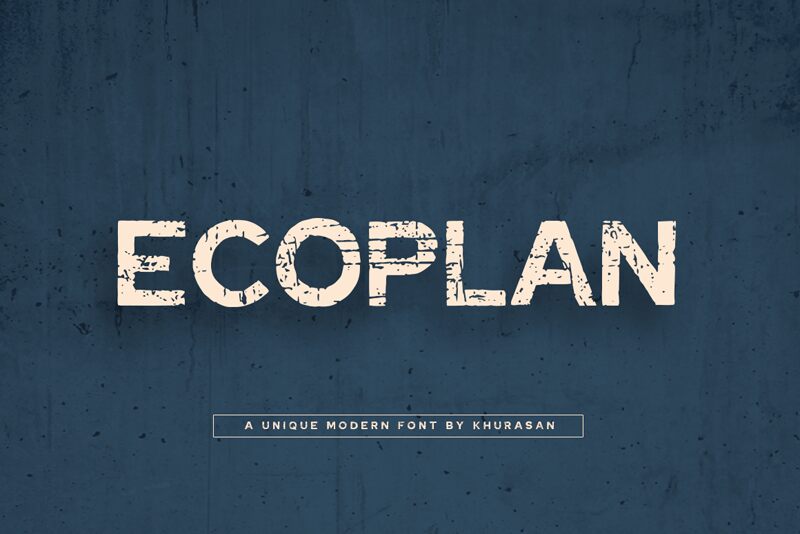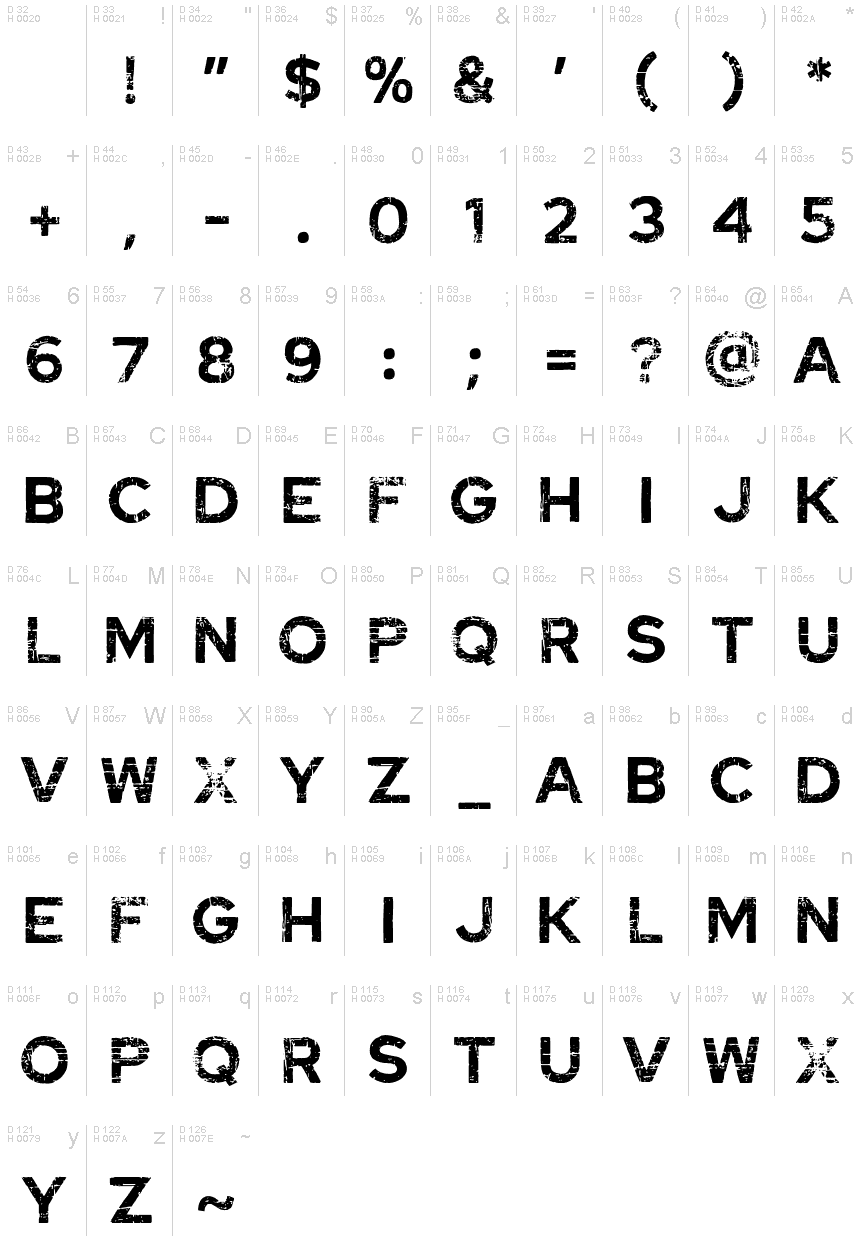
Ecoplan
Ecoplan, designed by Khurasan, is a display font that boasts an eroded, semi-bold character with a semi-expanded width that adds a gritty yet modern touch to any design project.
Perfect for those seeking an edge in their creative work, Ecoplan's distinctive texture makes it an ideal candidate for eye-catching posters, dynamic logos, contemporary magazines, and compelling book covers. Its versatile nature also extends to banners and various branding materials where a touch of personality is essential.
Embrace Ecoplan's unique style to elevate your designs and give them that standout quality that captivates audiences and breathes life into your ideas.